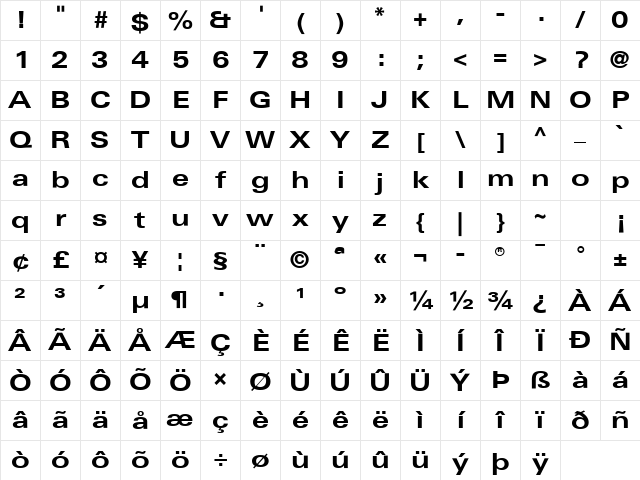
LTUnivers Bold
Complete LTUnivers Bold glyph index. Displaying only characters natively supported by LTUnivers Bold font.
Design Context for LTUnivers
LTUnivers is a composed and adaptable typeface that performs quietly and consistently across a wide range of design contexts. Its bold stroke weight gives it real presence on the page.
Pro Tip: Use LTUnivers in both headline and body roles to test its range before committing to a single application.
Who designed the LTUnivers Bold font?